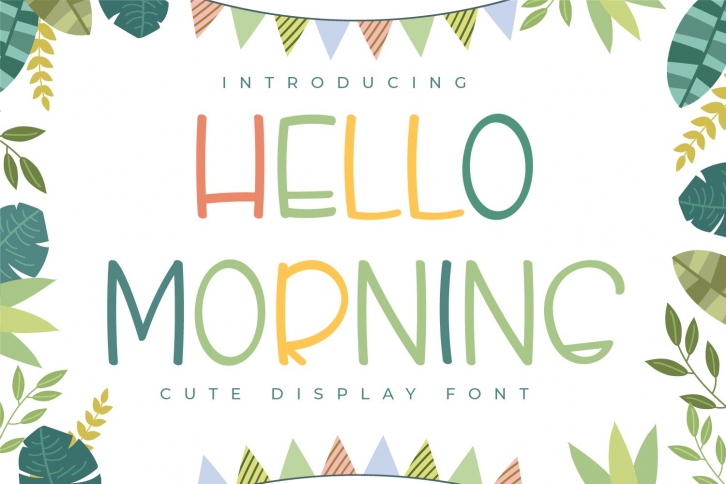
Hello Morning is a trendy and unique font with an authentic style. It was designed by titik creative and it's a great choice for creative people who need such a font. It was released on May 27, 2021 and the file size is 14.3 MB. Hello Morning will add an organic vibe to any design idea!